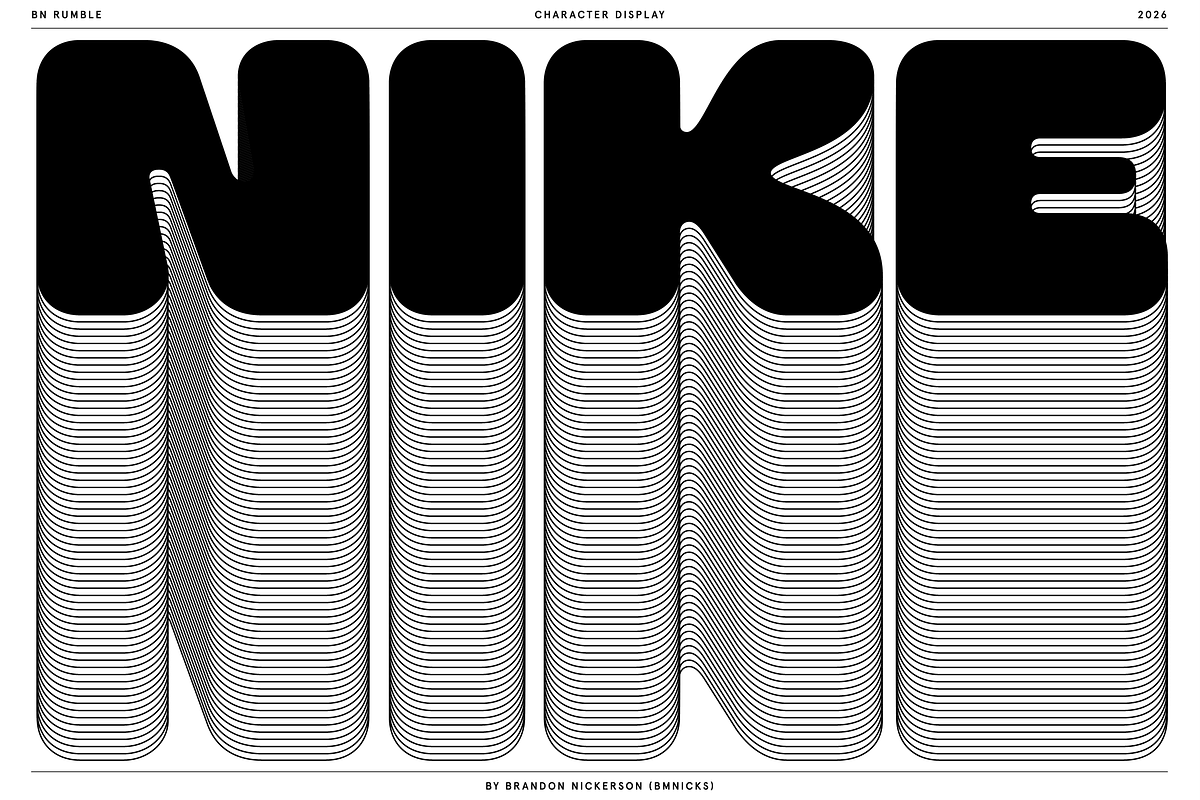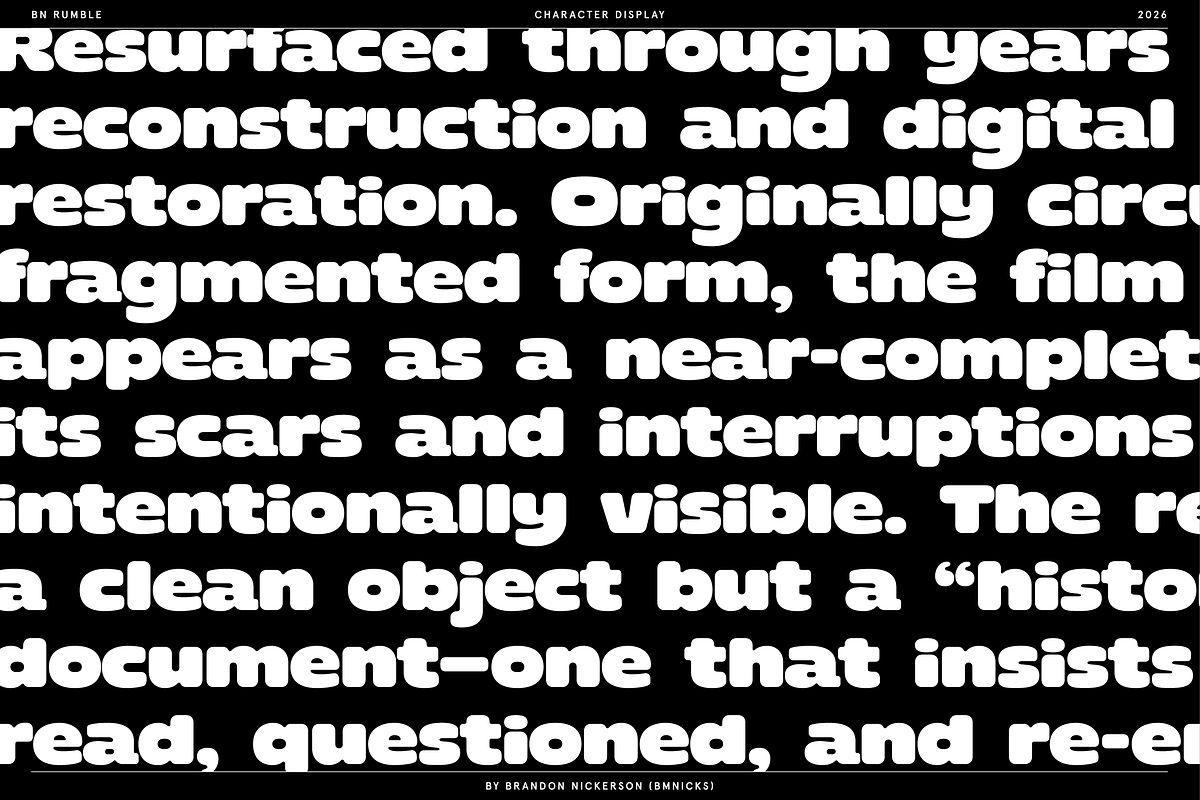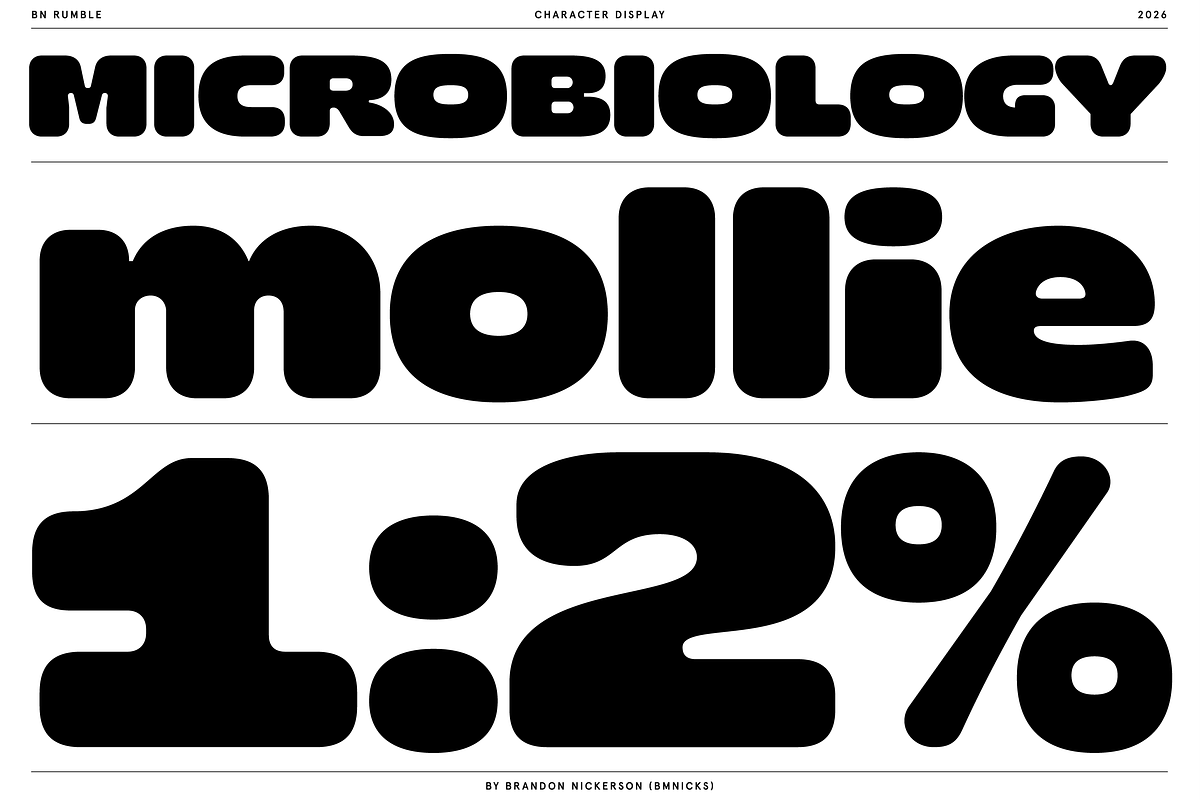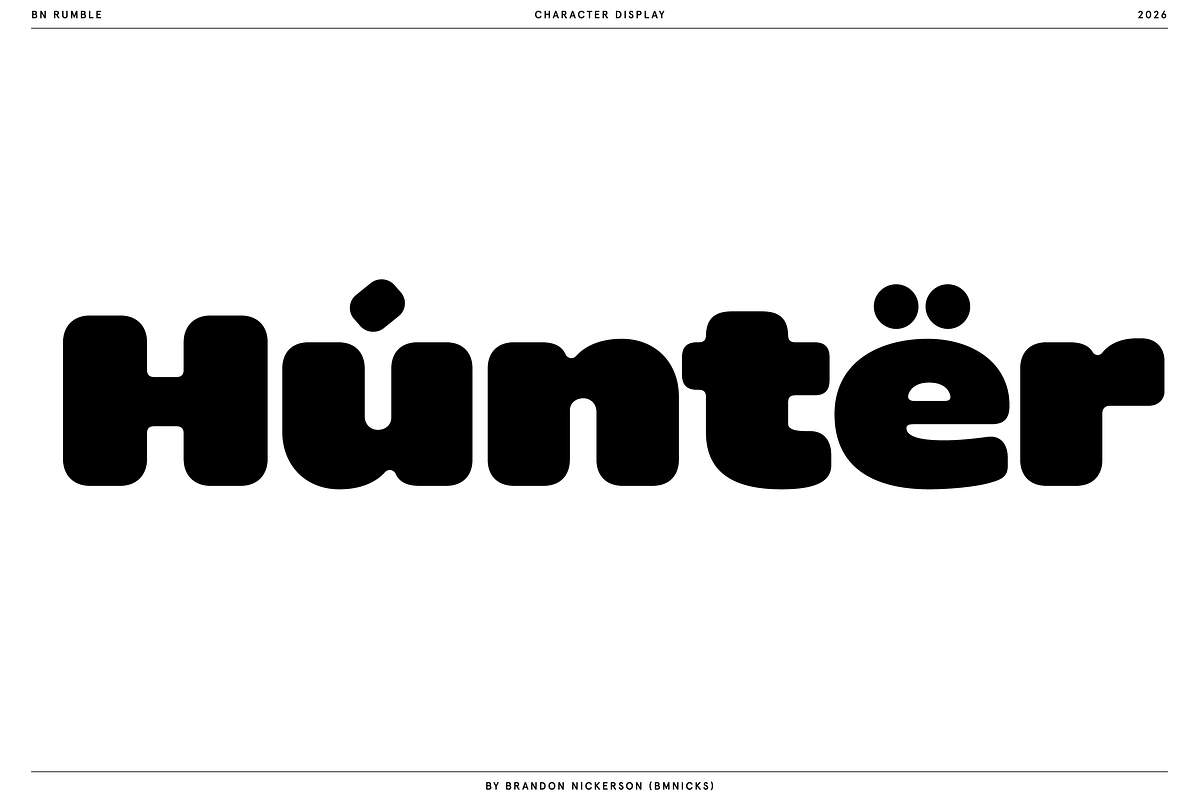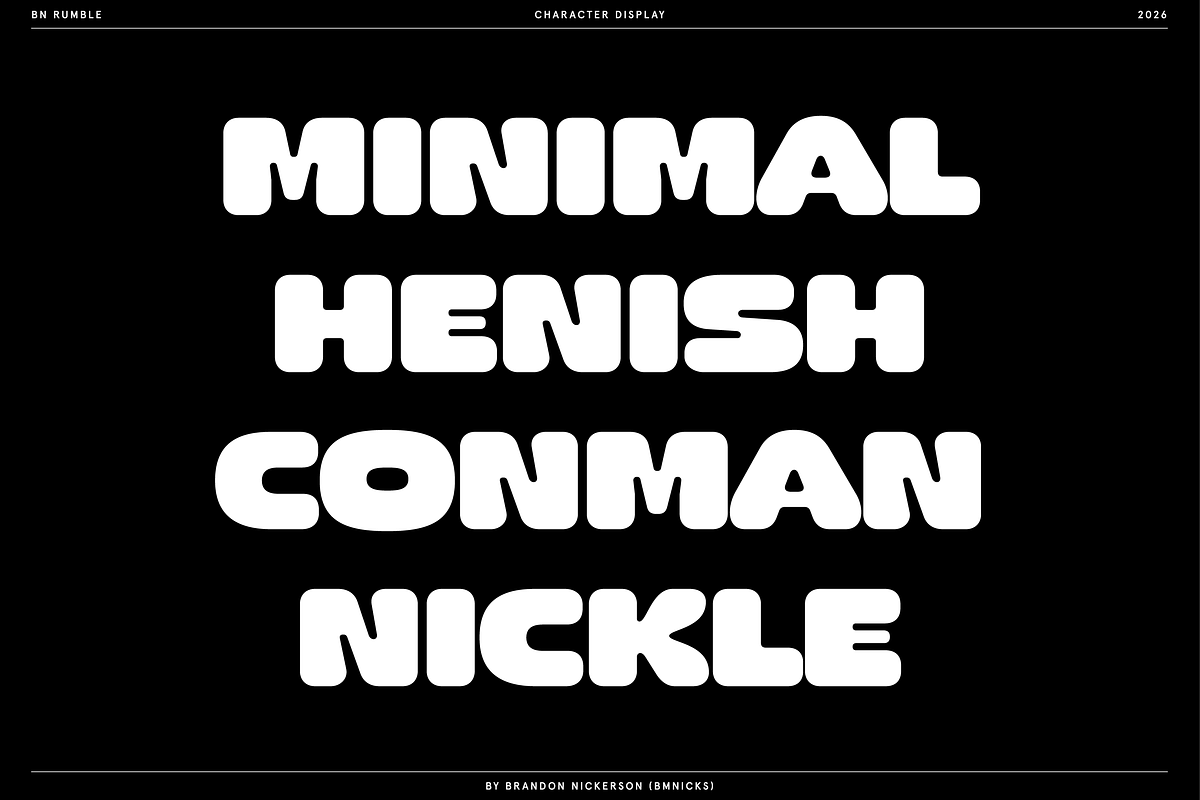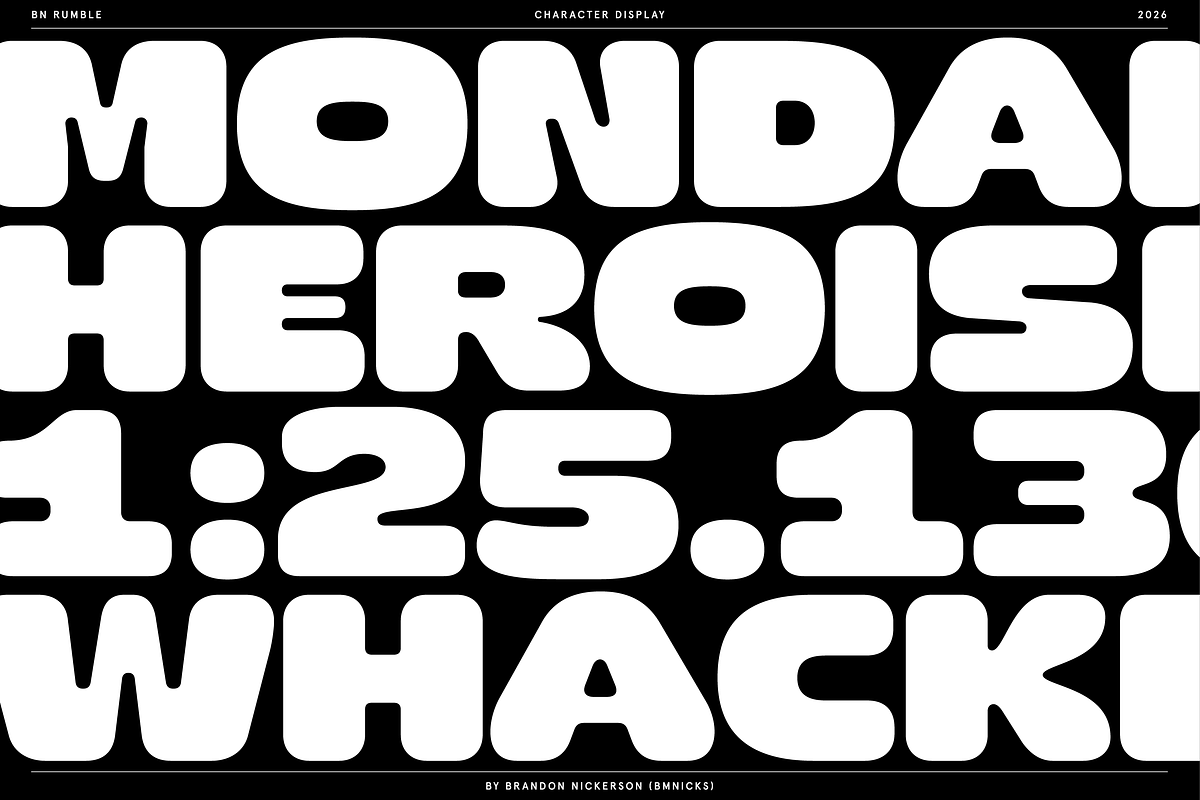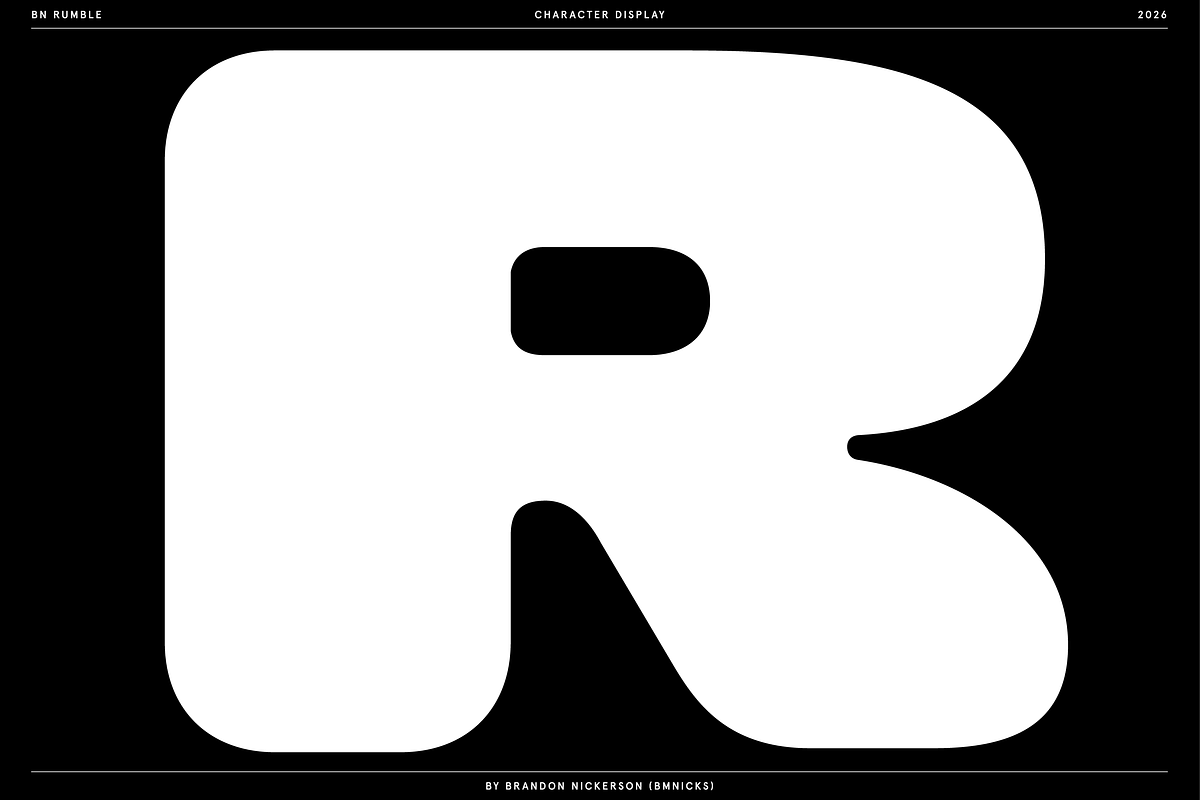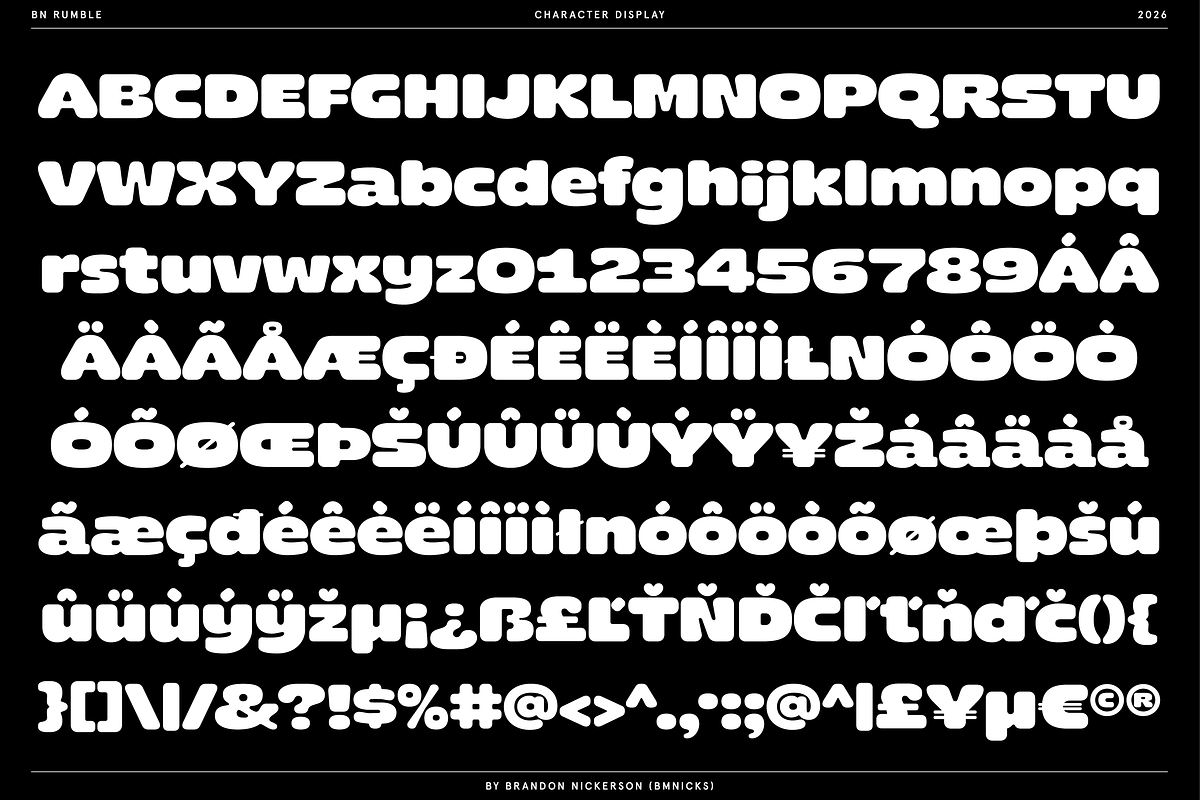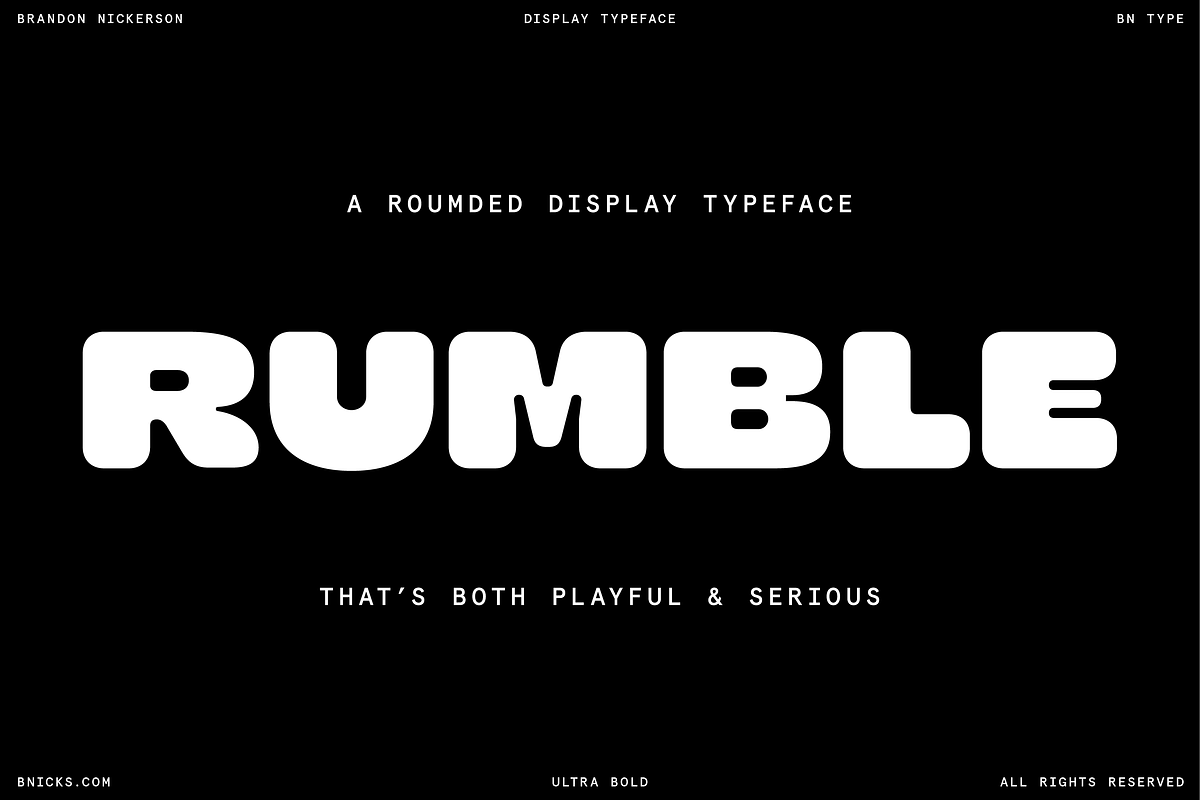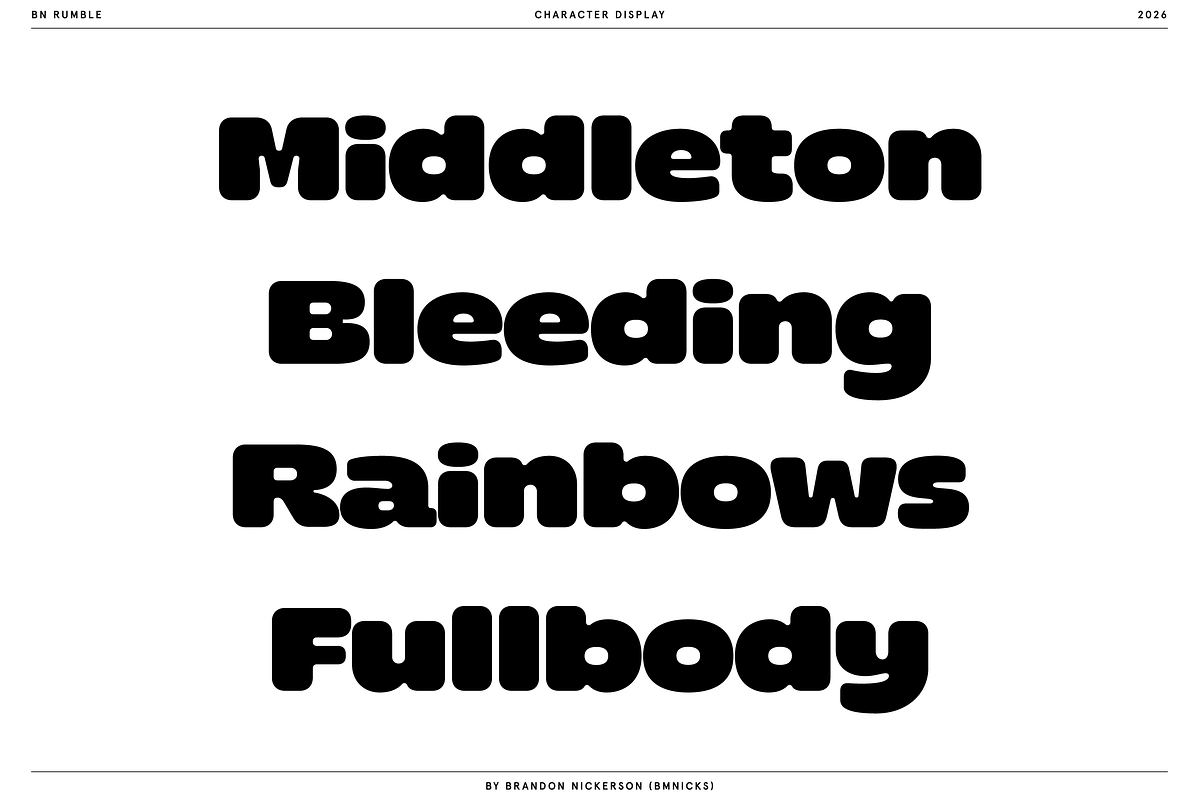
BN Rumble
BN Rumble is a bold display typeface built to hold attention. Thick, rounded letterforms and confident curves give it a playful presence while maintaining strong structure and readability. The shapes are soft and inflated, but the rhythm and spacing keep everything grounded and balanced.
Designed primarily for large display sizes, BN Rumble thrives in posters, branding, packaging, editorial headlines, and social graphics where personality matters just as much as legibility. The forms are heavy and confident without feeling noisy or chaotic.
The design sits somewhere between retro signage, modern branding typography, and playful bubble lettering—making it flexible across both contemporary and nostalgic visual styles.
BN Rumble is ideal for:
• Branding and logos • Posters and album artwork • Packaging design • Social media graphics • Headlines and editorial layouts • Merchandise and apparel • Bold typographic compositions
• Uppercase alphabet • Lowercase alphabet • Numerals • Punctuation • Consistent heavy display weight • Optimized for large scale typography